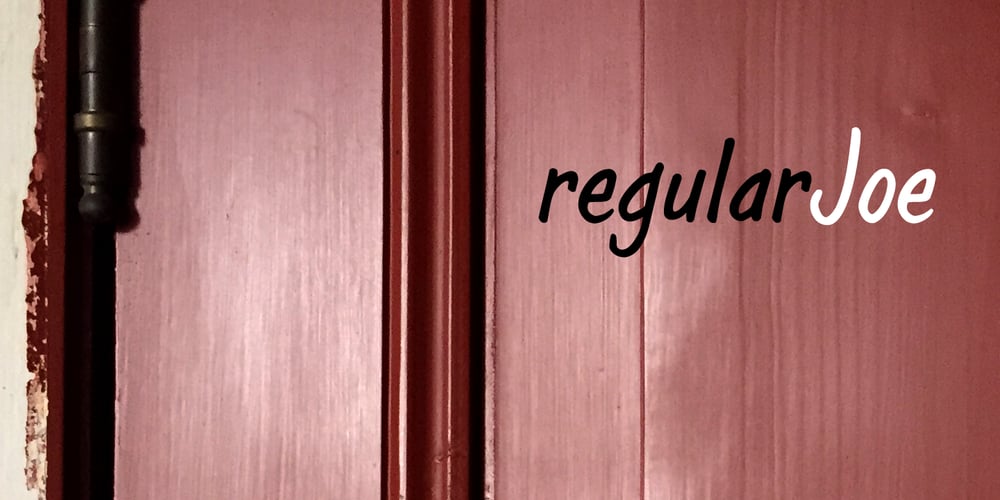
RegularJoe
RegularJoe font
RegularJoe Font Family was designed by Jeroen “Joebob” van der Ham and published by JOEBOB graphics. RegularJoe contains 1 styles and family package options. A handwritten but very clean and organized font that’s a little bold and a little slanted. Soon to be followed by its evil twin: irregularJoe.